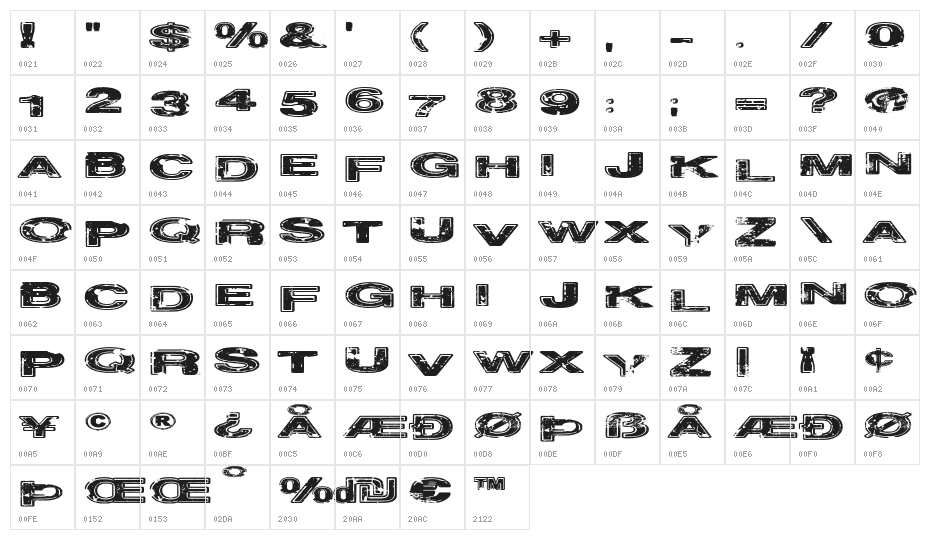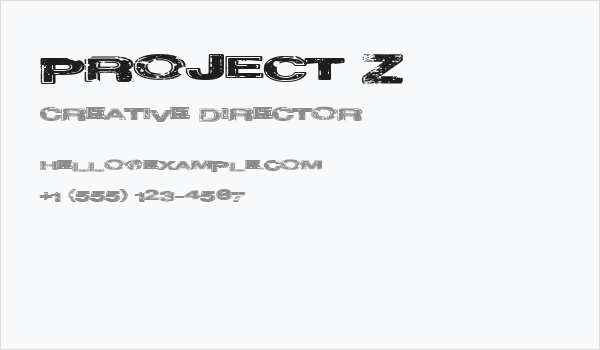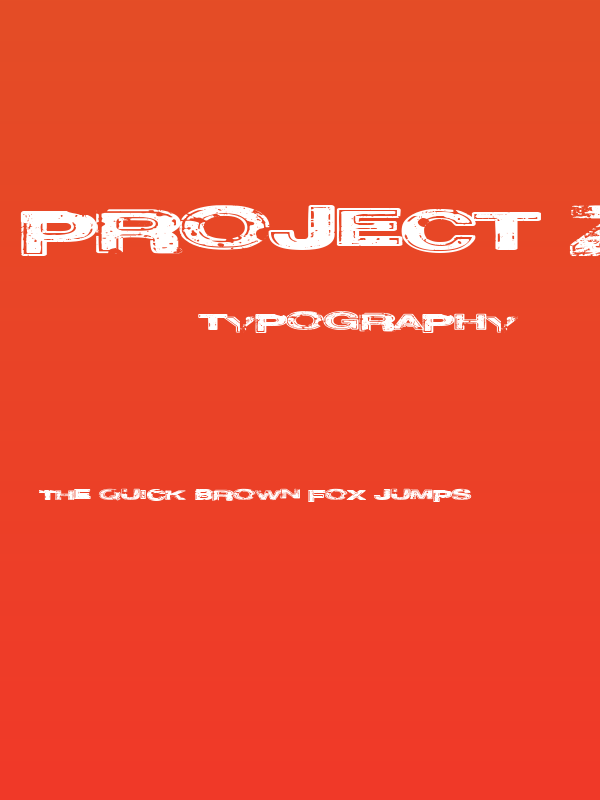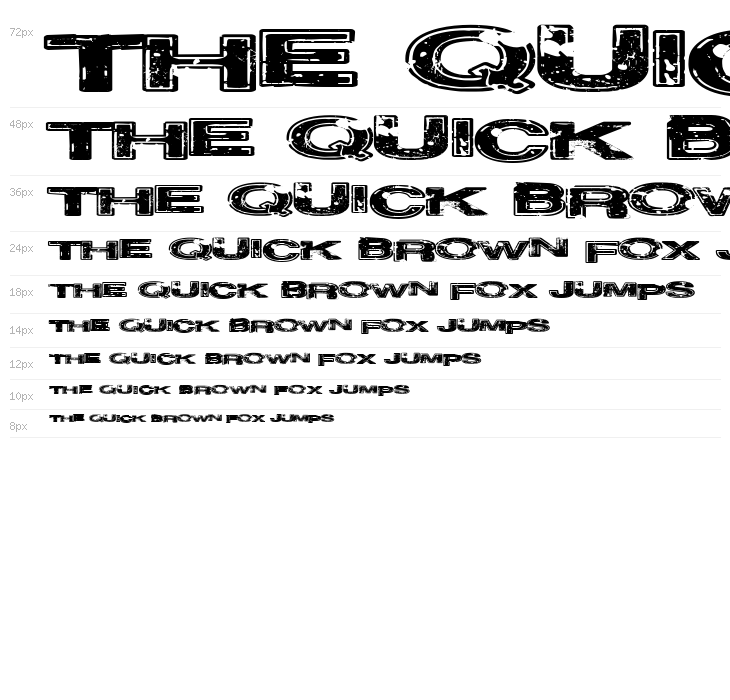
Project Z Font
Project Z Description
This font features a bold, distressed style with a grunge texture that gives it a rugged and worn appearance. The characters are uppercase and lowercase, with numbers and a variety of special symbols. The design incorporates a rough, uneven edge that adds to its vintage and industrial feel. The bold strokes and irregular outlines make it stand out, ideal for creating a strong visual impact. The font's unique texture suggests a sense of history and character, making it suitable for projects that require a touch of edginess and authenticity.
| Overall Style | Vintage |
| Proposed Projects | Ideal for posters, album covers, branding for edgy products, and event flyers. |